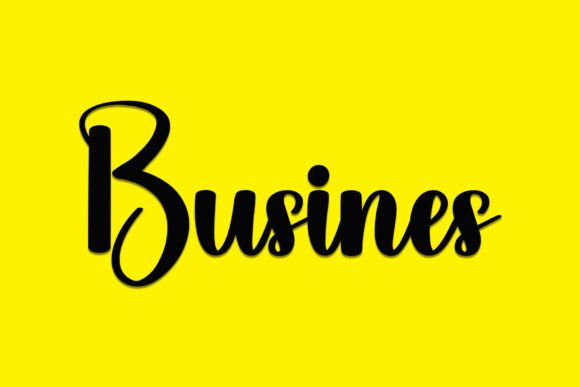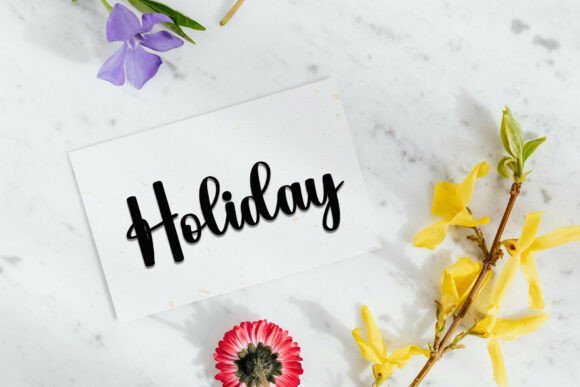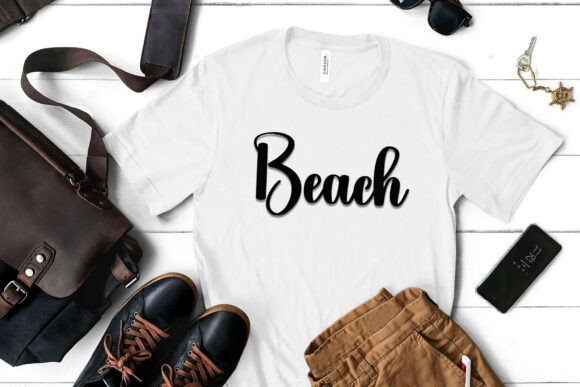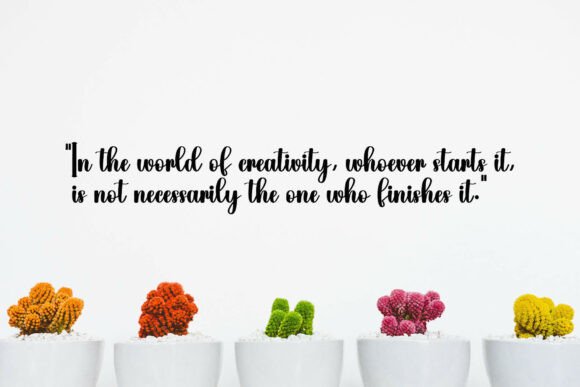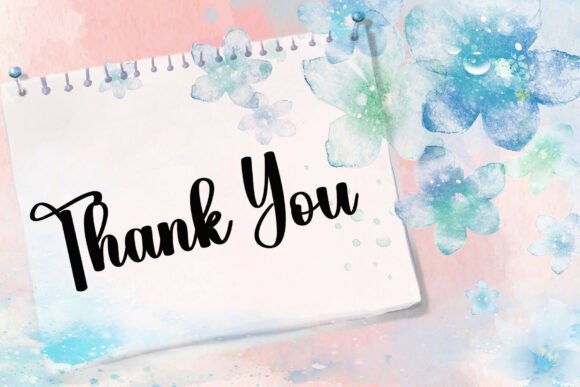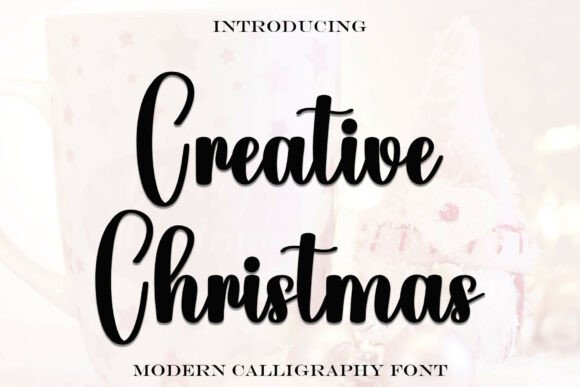
Deck the Halls with Creative Christmas Font: A Sweet and Elegant Handwritten Delight
As the holiday season approaches, designers and crafters are on the lookout for the perfect typography to add a touch of magic to their projects. Look no further than Creative Christmas Font, a sweet and cursive handwritten font that’s sure to bring joy and romance to your designs. In this article, we’ll dive into the world of Creative Christmas Font, exploring its features, uses, and benefits, as well as provide tips and inspiration for incorporating it into your holiday projects.
A Font that’s Merry and Bright
Creative Christmas Font is a beautiful, handwritten font that’s been carefully crafted to evoke the spirit of the holiday season. Its gentle, cursive curves and sweet embellishments make it the perfect choice for adding a touch of elegance and whimsy to your designs. Whether you’re working on a festive holiday card, a wedding invitation, or a marketing promotion, Creative Christmas Font is sure to impress.
So, what makes Creative Christmas Font so special? Here are just a few of its key features and benefits:
• Sweet and cursive handwritten style: Creative Christmas Font boasts a beautiful, flowing script that’s perfect for adding a touch of romance and elegance to your designs.
• Versatile and adaptable: This font is incredibly versatile, and can be used on a wide range of design projects, from branding and logos to greeting cards and marketing promotions.
• Fancy and elegant, yet casual: Creative Christmas Font strikes the perfect balance between sophistication and approachability, making it ideal for designers who want to create projects that are both stylish and down-to-earth.
Uses and Applications
So, what can you create with Creative Christmas Font? The possibilities are endless! Here are just a few ideas to get you started:
• Holiday cards and invitations: Add a touch of festive flair to your holiday cards and invitations with Creative Christmas Font.
• Wedding designs: This font is perfect for wedding-related projects, from invitations and save-the-dates to wedding favors and decorations.
• Branding and logos: Use Creative Christmas Font to create a unique and memorable brand identity that’s sure to stand out.
• Marketing promotions: Add a touch of elegance and sophistication to your marketing promotions, from flyers and brochures to social media graphics and ads.
• Fashion and lookbooks: Creative Christmas Font is perfect for fashion designers and stylists who want to add a touch of glamour and sophistication to their lookbooks and marketing materials.
Ready to get started with Creative Christmas Font? Here are a few tips and inspiration to help you make the most of this beautiful font:
• Experiment with different colors and textures: Don’t be afraid to get creative with different colors and textures to add depth and interest to your designs.
• Pair with other fonts: Try pairing Creative Christmas Font with other fonts to create a unique and visually appealing combination.
• Use on a variety of design materials: From business cards and letterheads to social media graphics and website headers, Creative Christmas Font can be used on a wide range of design materials.
Creative Christmas Font is a sweet and elegant handwritten font that’s perfect for designers and crafters who want to add a touch of magic to their holiday projects. With its versatile and adaptable design, this font can be used on a wide range of projects, from branding and logos to holiday cards and marketing promotions. Whether you’re looking to create something fancy and elegant or casual and down-to-earth, Creative Christmas Font is the perfect choice. So why wait? Download Creative Christmas Font today and start creating your own festive and beautiful designs!